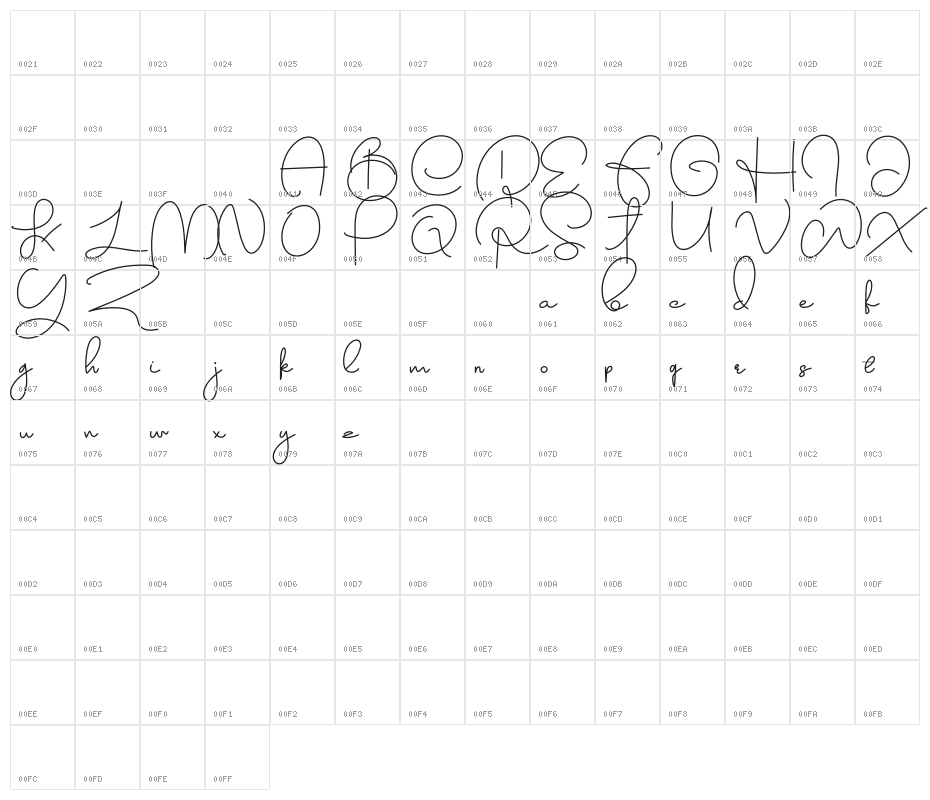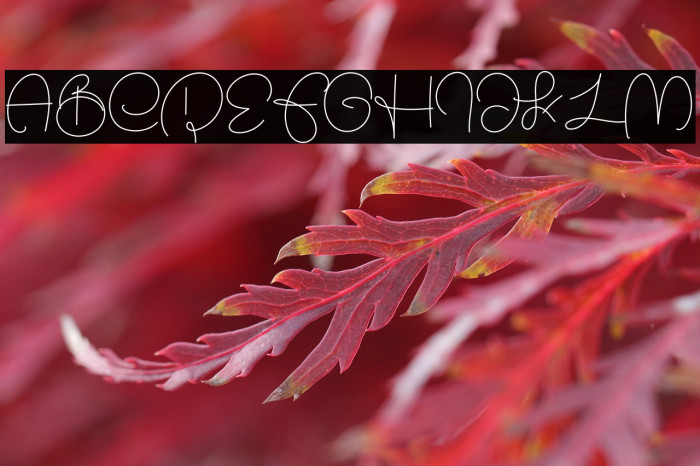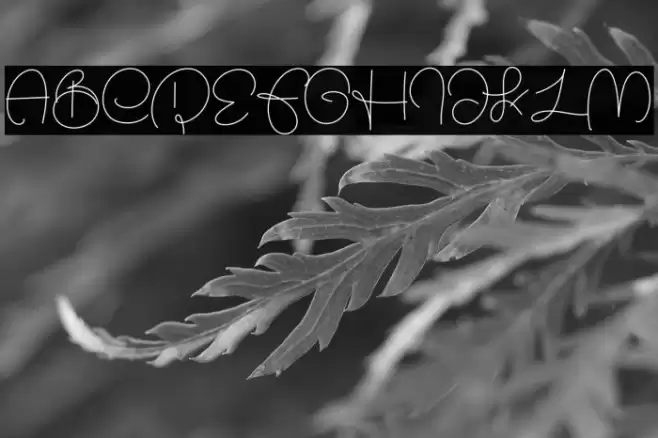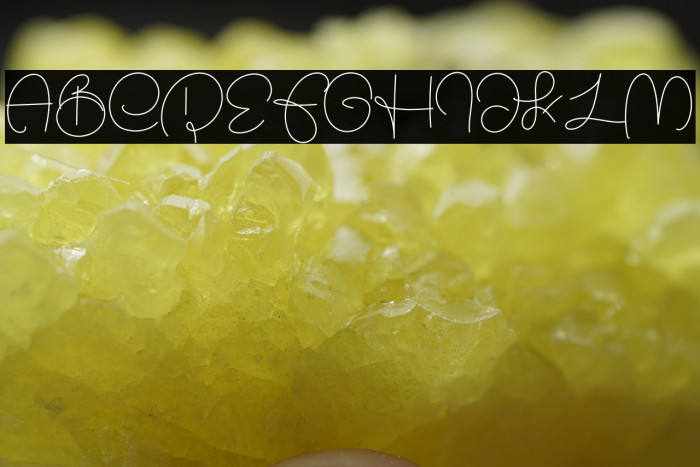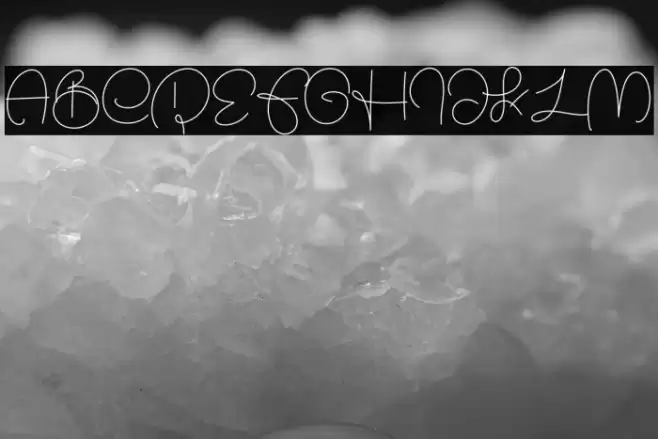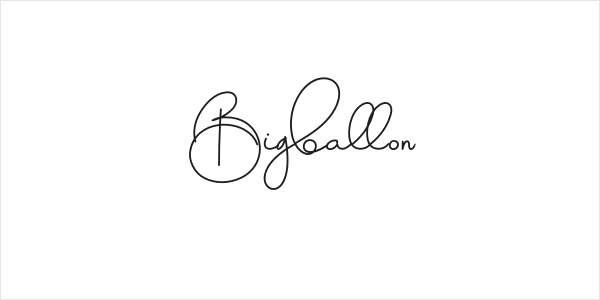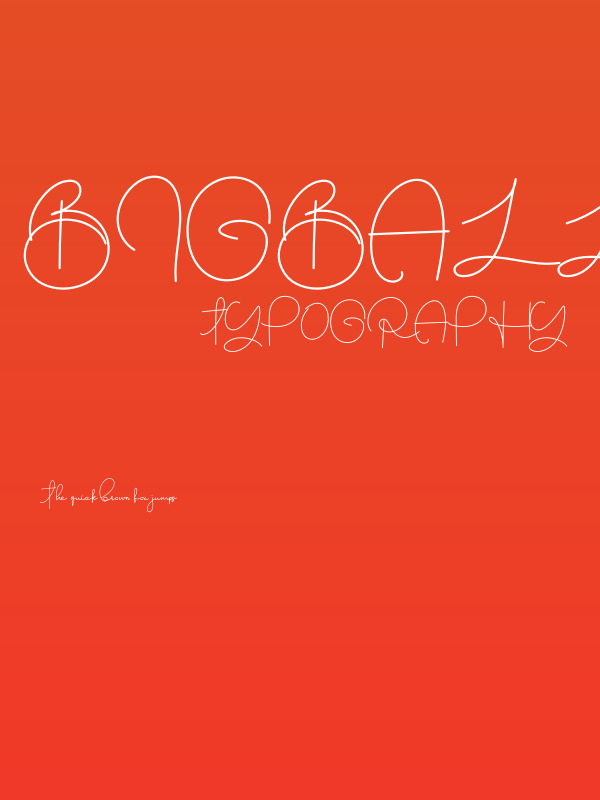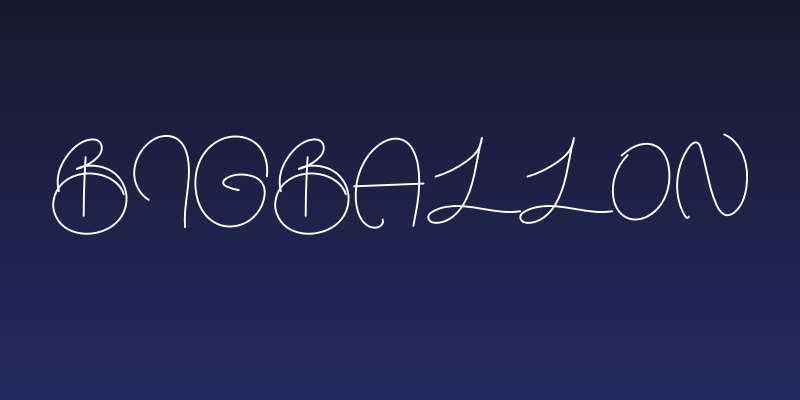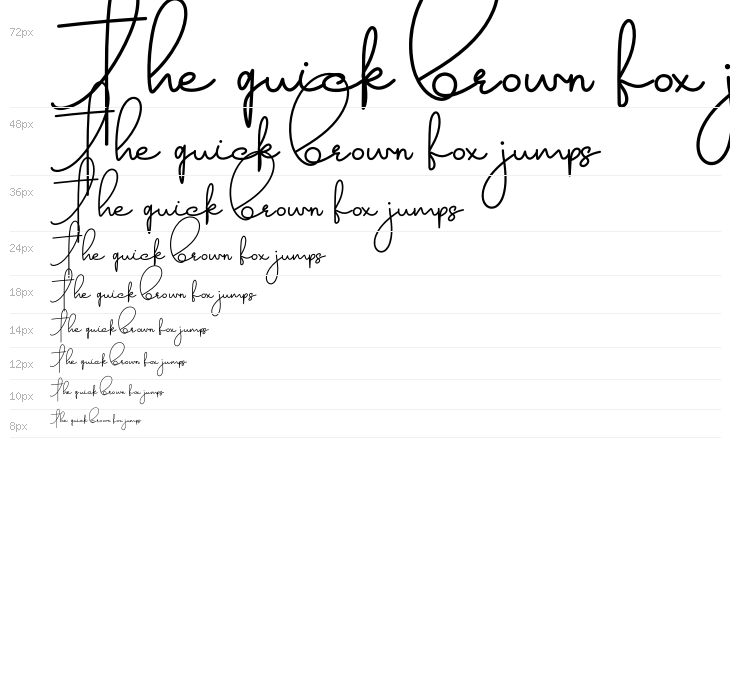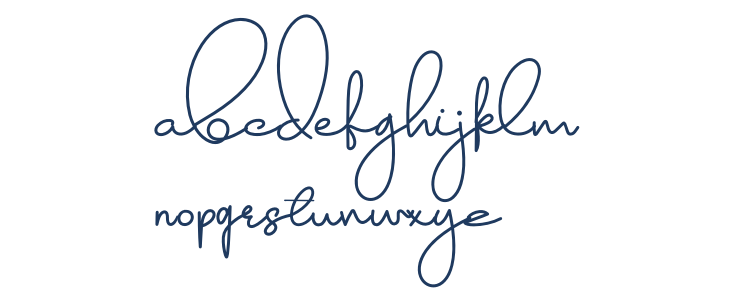
Bigballon Font
Bigballon Description
This font features a playful and whimsical design with a handwritten style. The uppercase letters are characterized by their looping, interconnected strokes, giving them a fluid and dynamic appearance. The lowercase letters maintain a similar style, with a slightly more compact and cohesive form. The overall design is light and airy, with a sense of movement and flow. The characters are well-spaced, allowing for easy readability despite the intricate design. This font is ideal for projects that require a touch of elegance and creativity, such as invitations, greeting cards, or artistic branding.
| Proposed Projects | Ideal for invitations, greeting cards, artistic branding, and creative projects. |